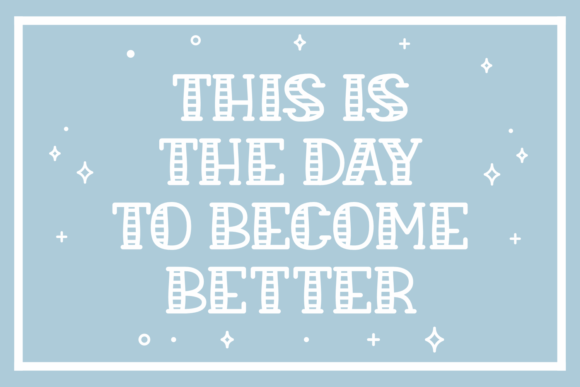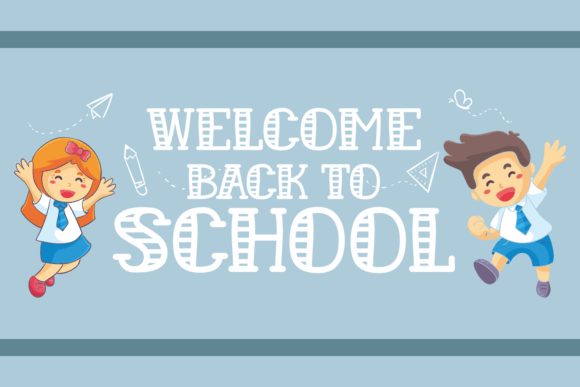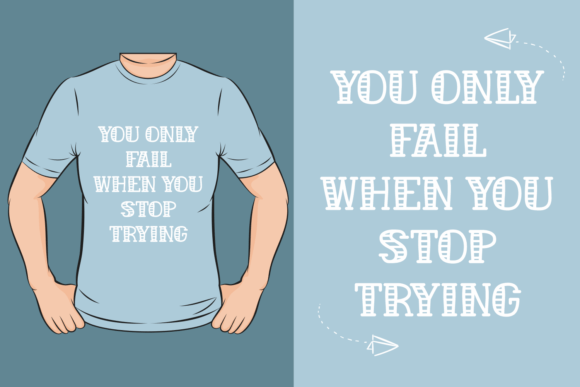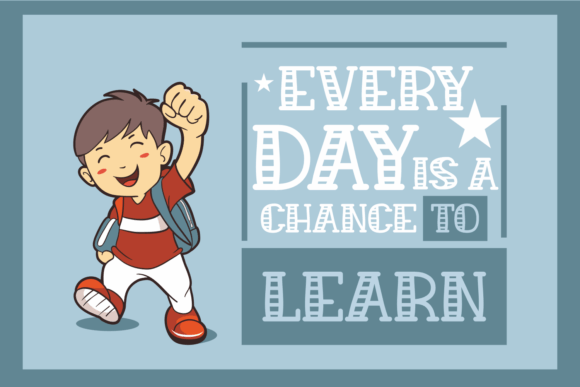
Introduction to Rohau Sayah Font
Rohau Sayah is a beautiful decorative font with a joyful touch.
It’s fun and playful and would be perfect for your next DIY project, stickers, t-shirt design, branding, kid’s clothes, and so much more .
Key Features of Rohau Sayah Font
Why Choose Rohau Sayah Font?
Rohau Sayah Font offers exceptional quality and versatility, making it a valuable addition to your design toolkit. Whether you’re creating for personal projects or commercial use, Rohau Sayah Font delivers professional results.